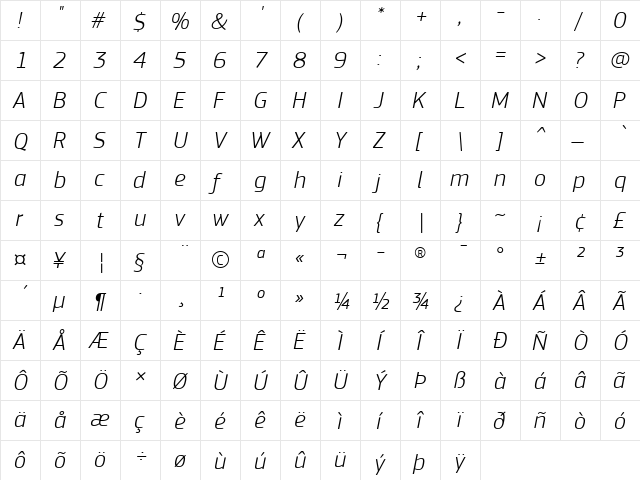
PF Square Sans Pro Light Italic
Light Italic · Parachute蠗orldwide Panos Vassiliou ·
DesignerPanos Vassiliou
Design Context for PF Square Sans Pro Typeface
PF Square Sans Pro takes a measured approach to typography — its balanced proportions and neutral character make it a reliable workhorse for both digital and print work. The dynamic lean of this cut emphasises speed and emphasis in any layout. Its slender proportions lend an understated elegance to any composition.
Pro Tip: Try PF Square Sans Pro for annotation and caption copy alongside an upright companion — the contrast in angle creates a dynamic but ordered typographic system.